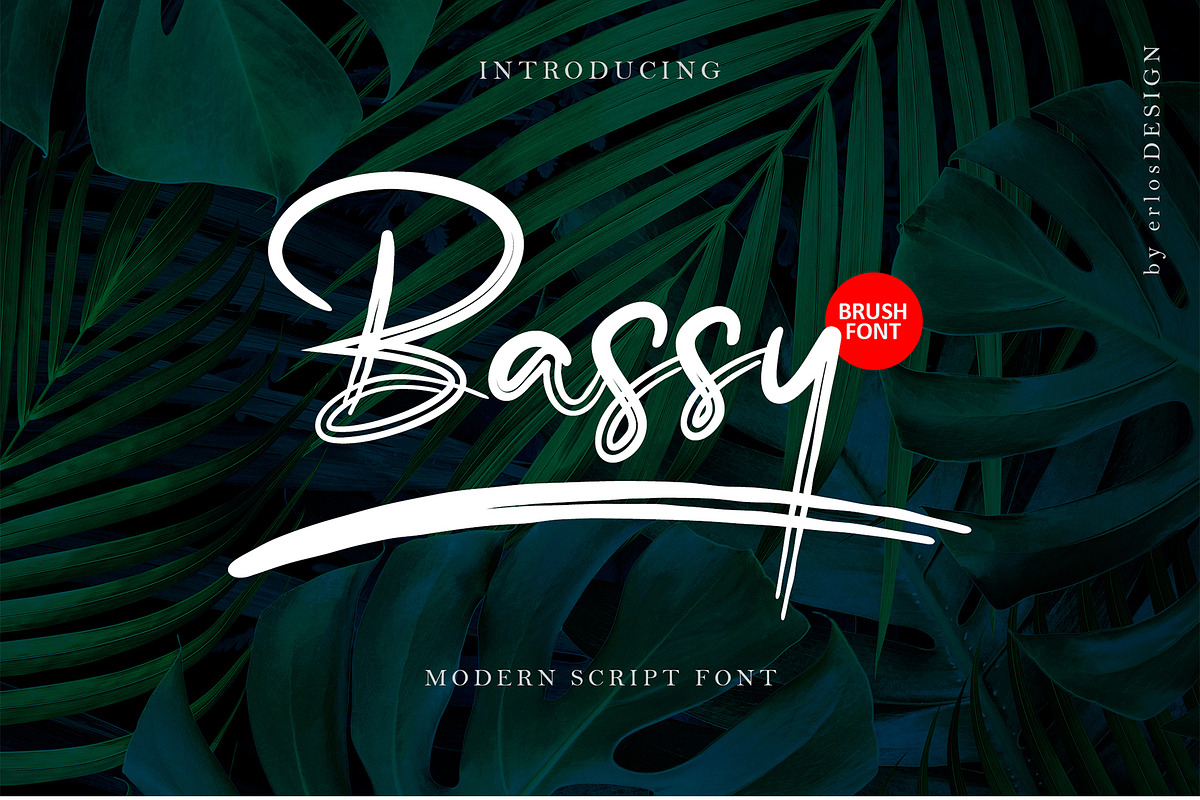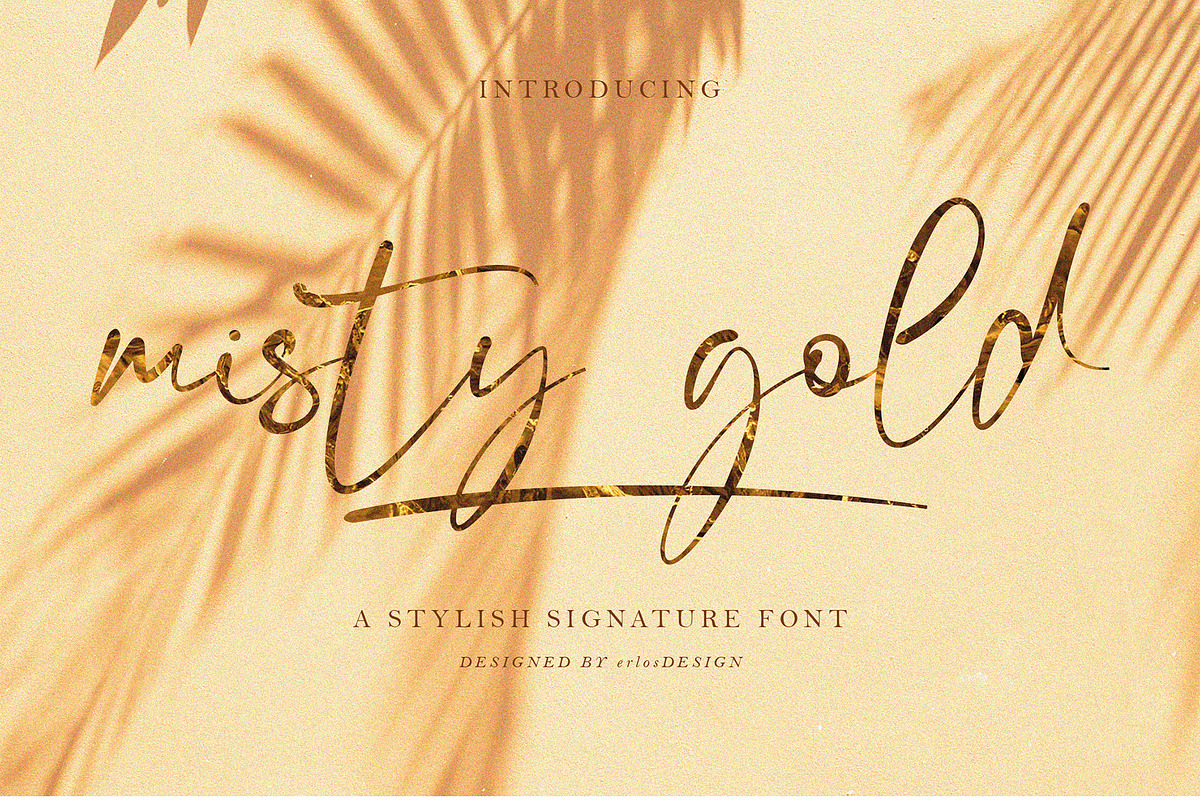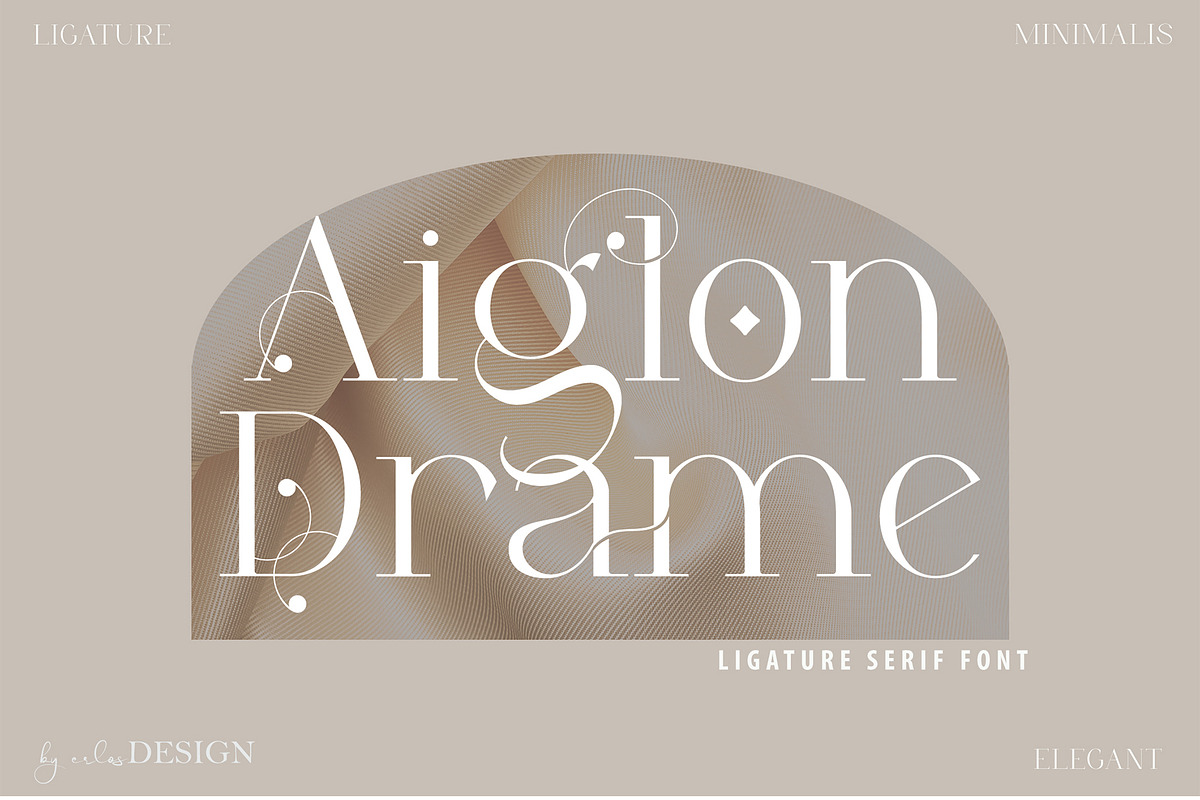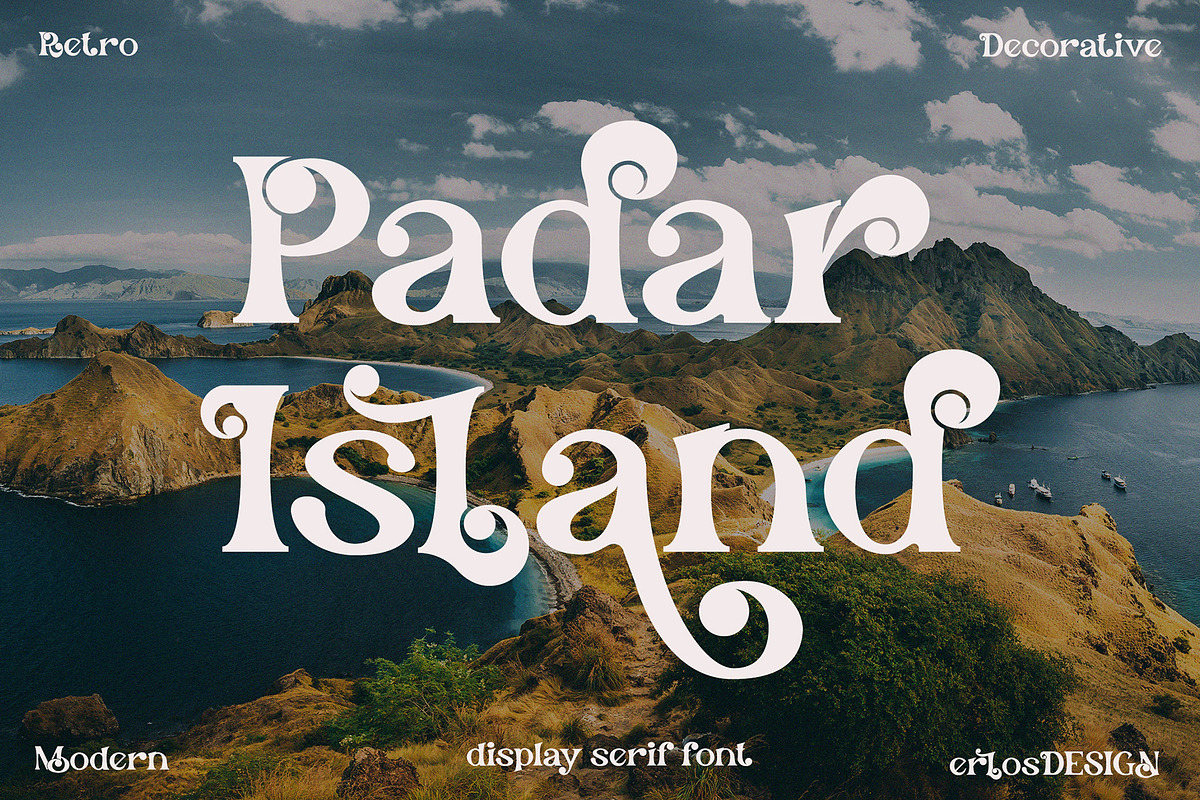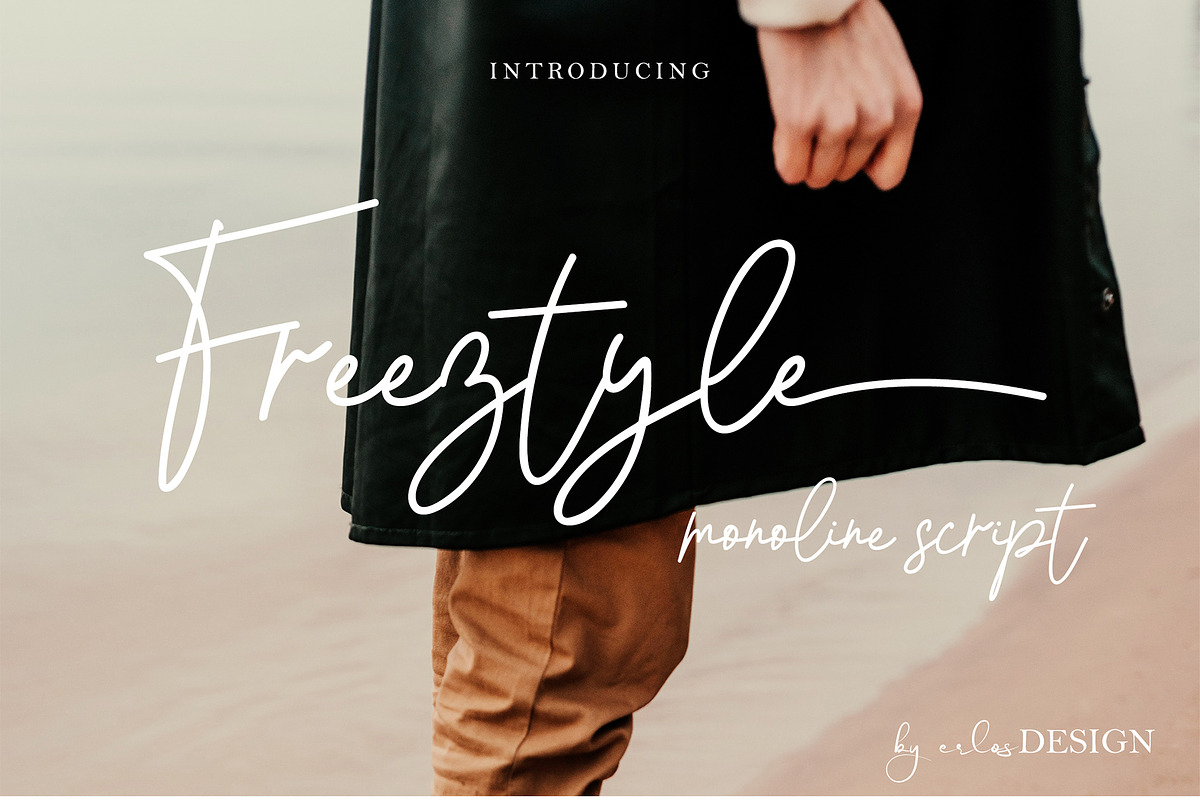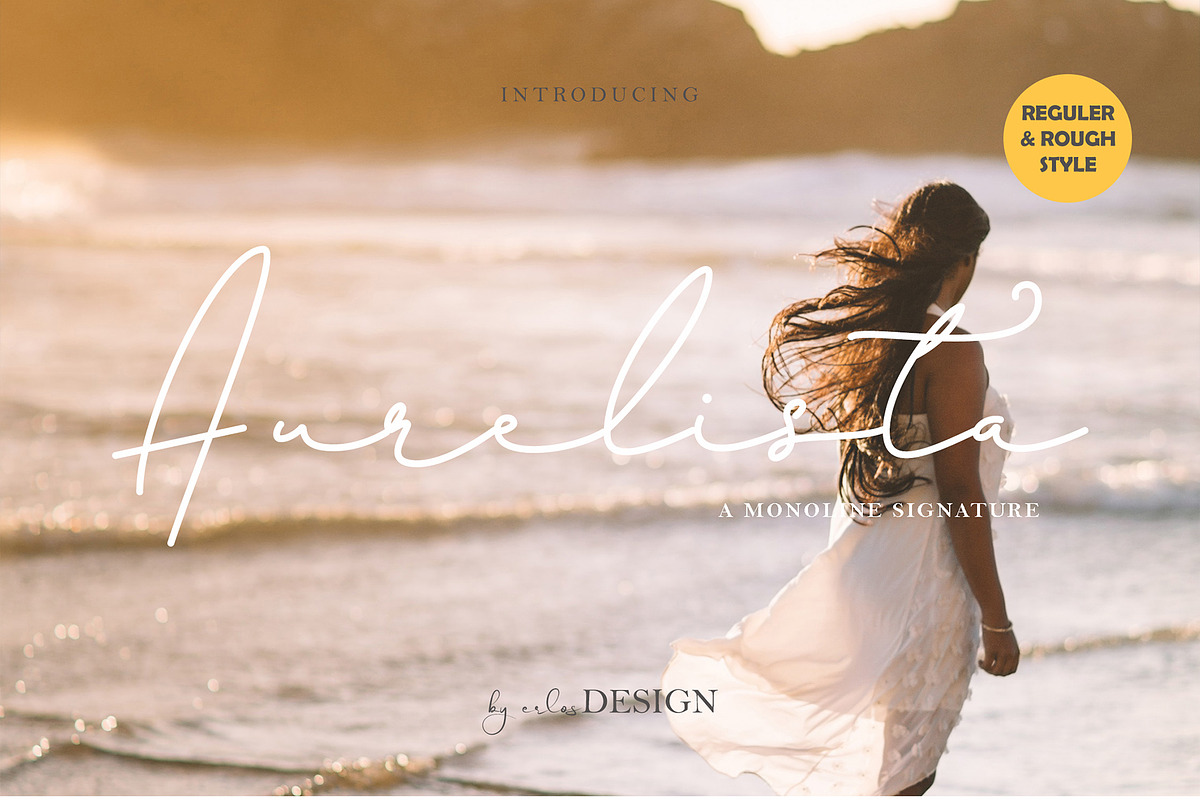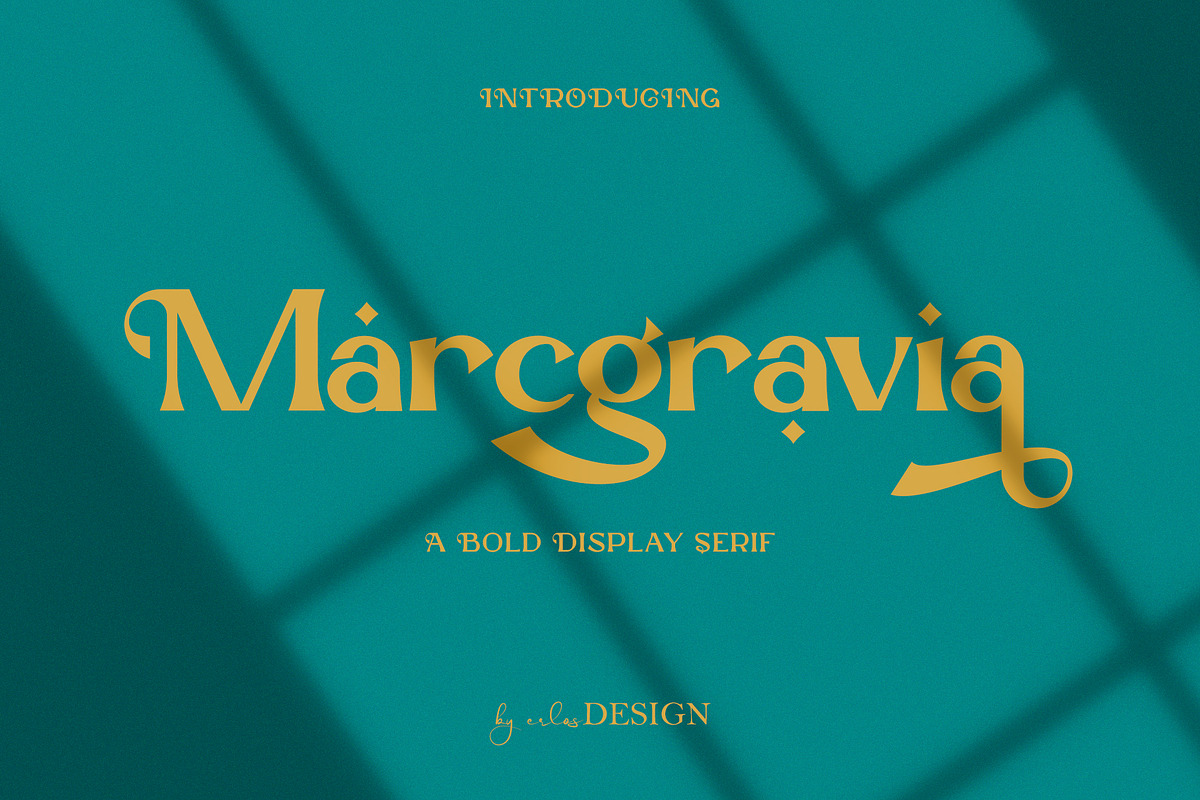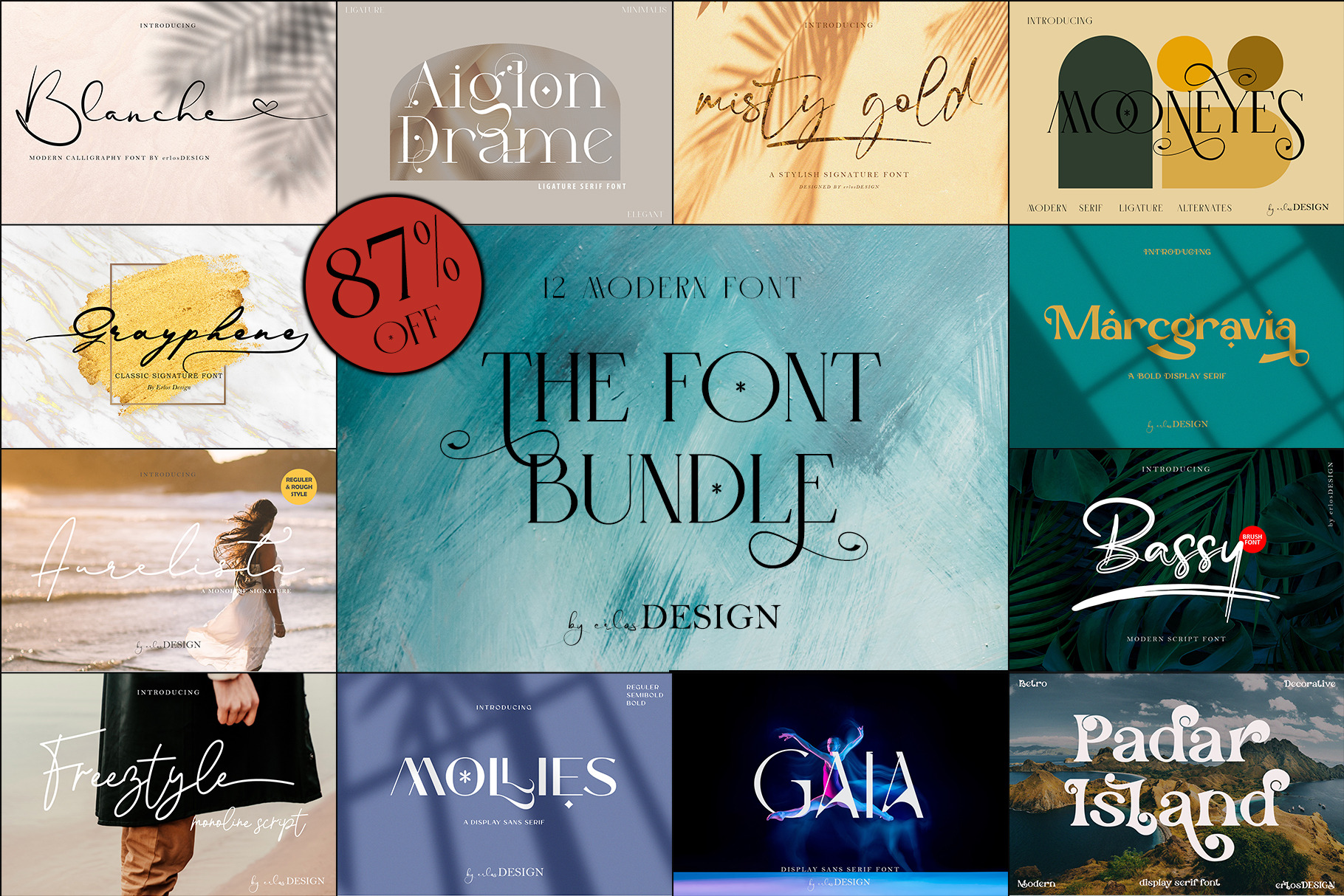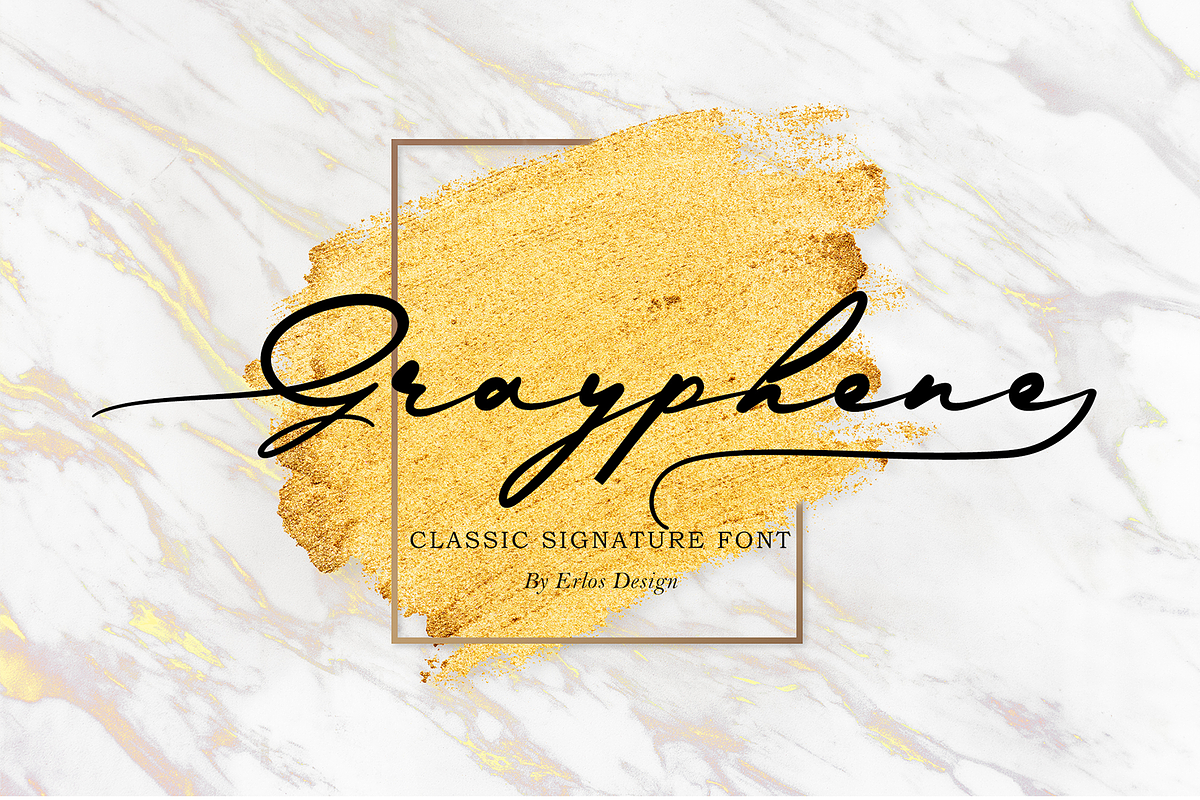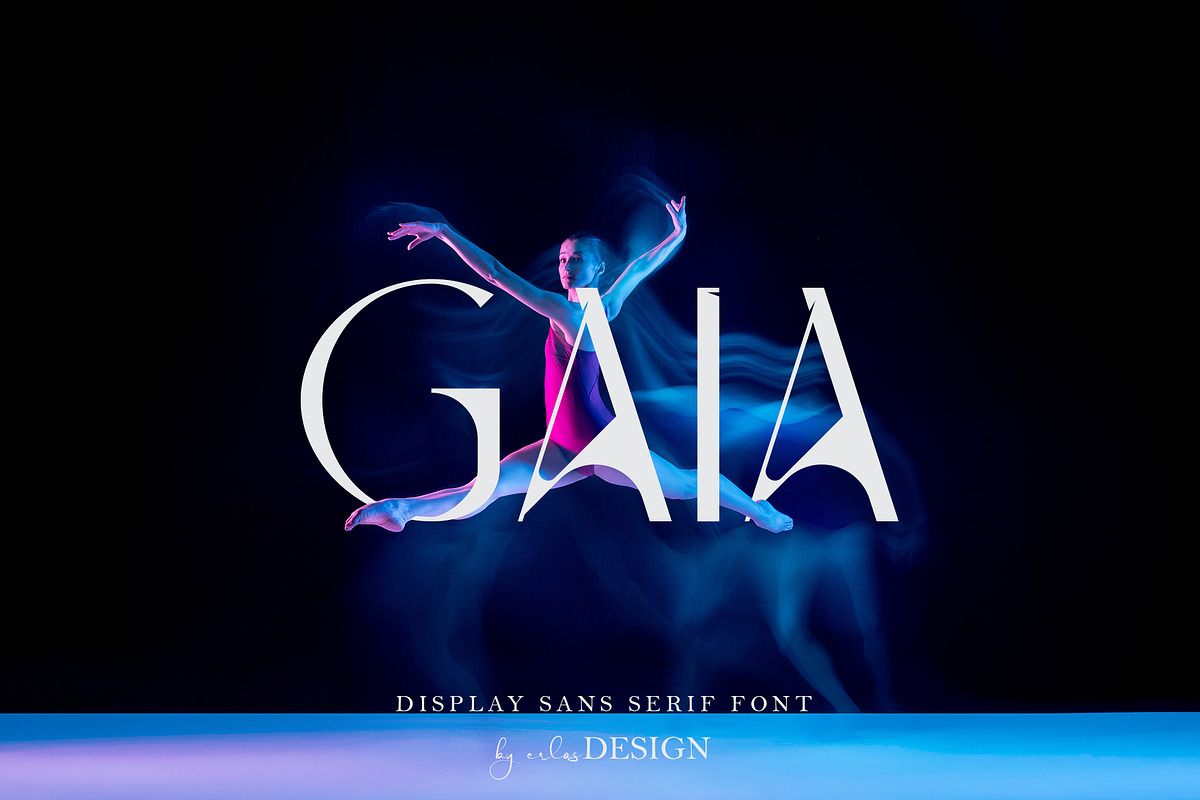
The Font Bundle 12 Modern Fonts
THE FONT BUNDLE - 12 Modern Fonts by erlosDESIGN
• Aiglon Drame - https://creativemarket.com/erlosdesign89/6502012-Aiglon-Drame-Modern-Ligature-Serif
• Aurelista - https://creativemarket.com/erlosdesign89/6526600-Aurelista-Monoline-Signature
• Bassy - https://creativemarket.com/erlosdesign89/6510163-Bassy-Brush-Font
• Blanche - https://creativemarket.com/erlosdesign89/6526833-Blanche-Signature-Font
• Freeztyle - https://creativemarket.com/erlosdesign89/6526372-Freeztyle-Monoline-Script
• GAIA - https://creativemarket.com/erlosdesign89/6500542-GAIA-display-sans
• Grayphene - https://creativemarket.com/erlosdesign89/6511536-Grayphene-Signature-Font
• Marcgravia - https://creativemarket.com/erlosdesign89/6501413-Marcgravia-Modern-Serif
• Misty Gold - https://creativemarket.com/erlosdesign89/6527130-Misty-Gold-Signature-Fonts
• MOLLIES - https://creativemarket.com/erlosdesign89/6505154-MOLLIES-Sans-Serif-Font
• MOONEYES - https://creativemarket.com/erlosdesign89/6501658-MOONEYES-Modern-Serif
• Padar Island - https://creativemarket.com/erlosdesign89/6559227-Padar-Island-Display-Serif-Font